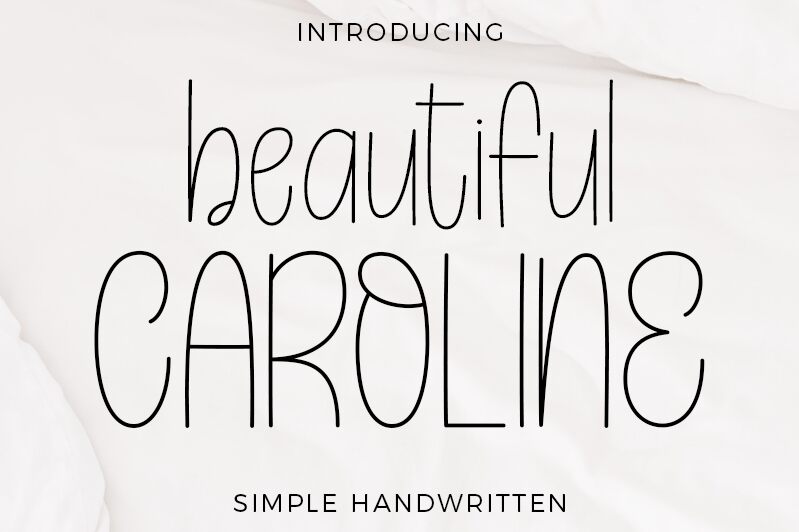
Beautiful Caroline is a simple handwritten typeface designed by Hamzah Muhamad Ihsan. Its extra-light weight and semi-condensed width make it perfect for creating elegant and delicate designs. The font's unique style adds a personal touch to invitations, greeting cards, and wedding stationery. It's also suitable for branding projects that require a subtle yet distinctive look. Beautiful Caroline can be used in both print and digital media, making it a versatile choice for any creative project. Give your designs an authentic touch with this beautiful typeface!